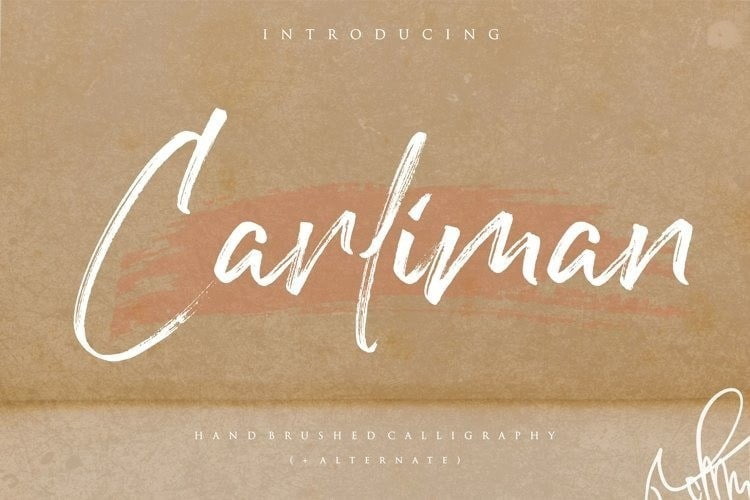
Carliman Hand Brush Font
Carliman Font is a hand drawn brush typeface. And is a typical font with such a signature look with natural flow and has the texture inside. This font can make your design look authentic and handcrafted.
Carliman suitable for this use in you for the signature, logotype, invitation cards, quotes art, website header design, packaging, branding and more. This font is always exciting to design you create.